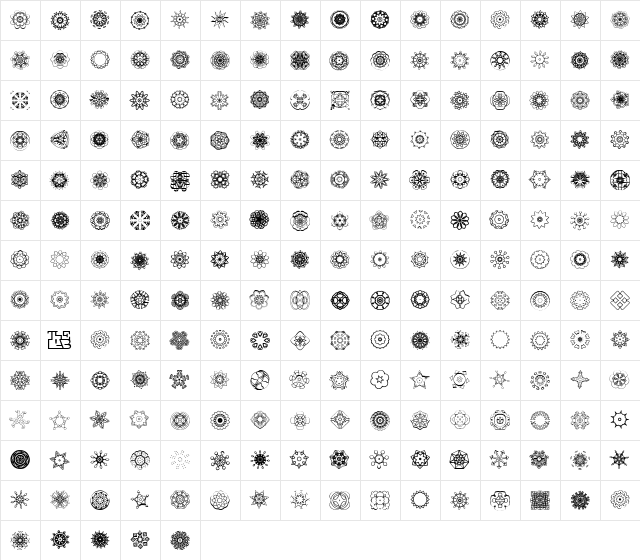
Extasy Regular
| Designer | Keya Kirkpatrick |
Design Context for Extasy Typeface
Extasy is a composed and adaptable typeface that performs quietly and consistently across a wide range of design contexts.